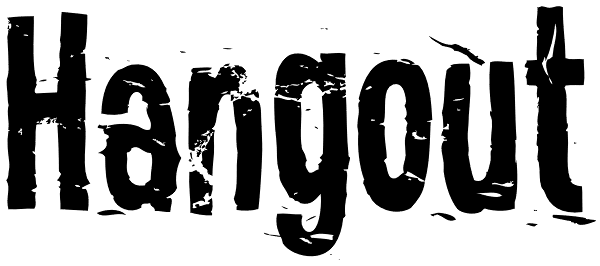
Hangout
Hangout has got a big mouthful of ligatures - including substitution for double letters and numbers - and on top of that, almost 200 substitutions for the most common letter combinations - almost 250 ligatures in total. Furthermore, Hangout also...